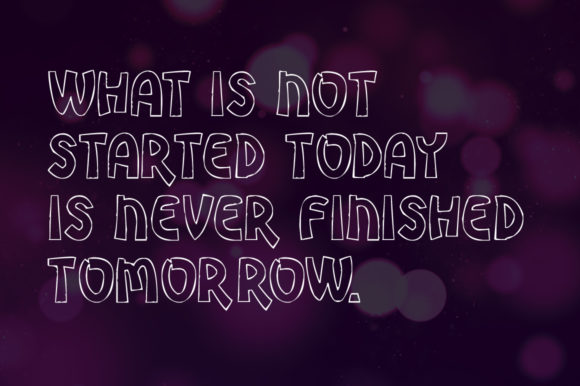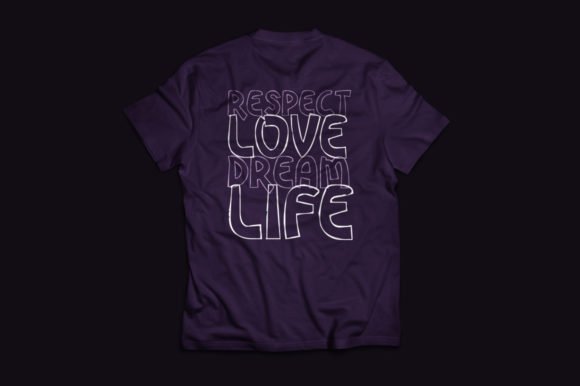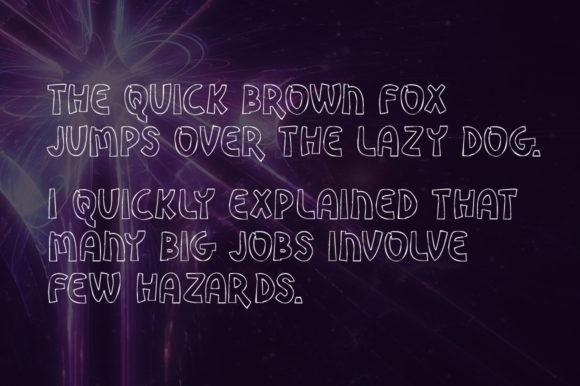
Introduction to Oceanity Darker Stroke Font
The Oceanity Darker Stroke is a brand new display font.
It’s perfectly suited for stationery, logos, t-shirts, papers, print designs, website headers, photo frames, flyers, music covers, posters, image sliders and much more .
Key Features of Oceanity Darker Stroke Font